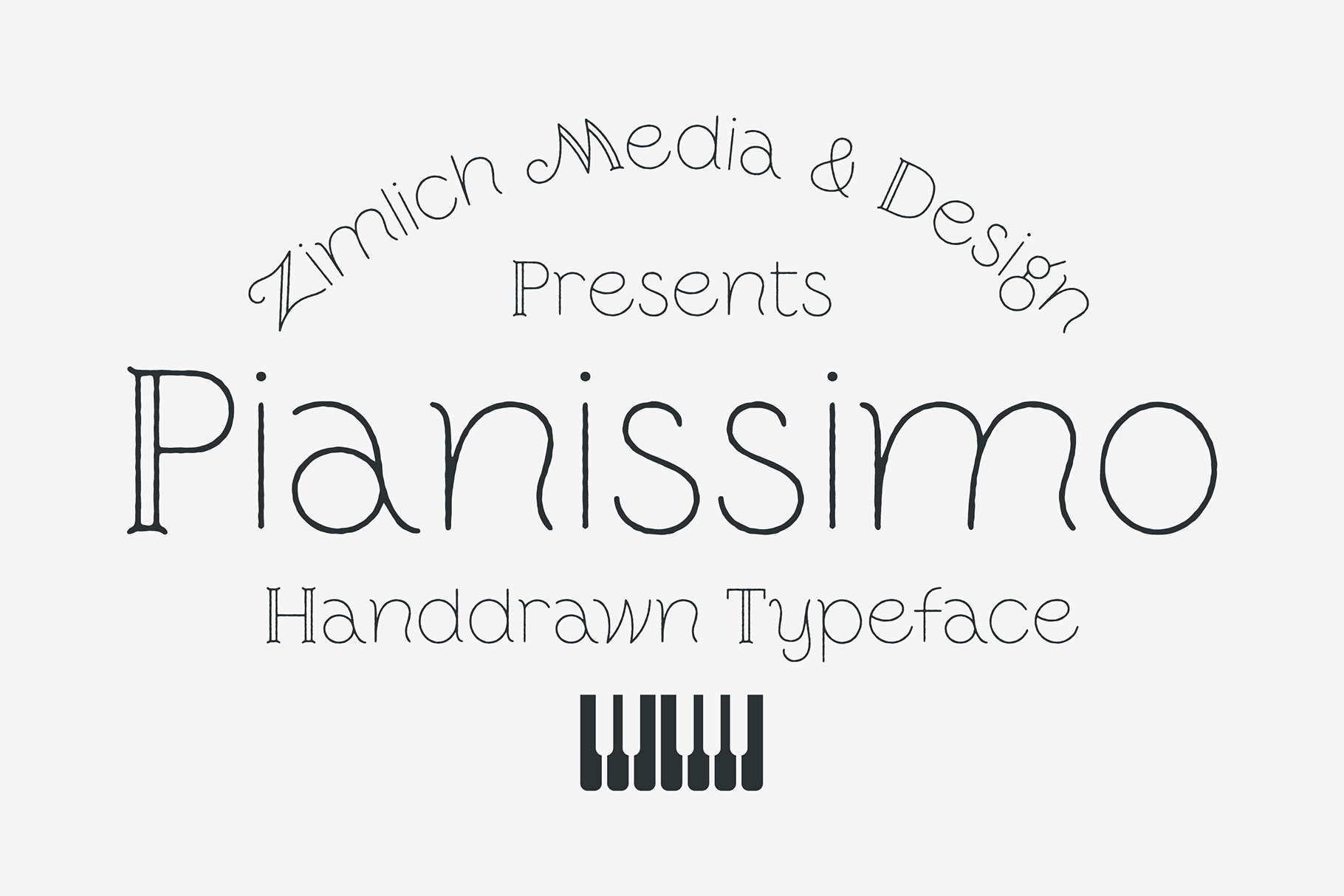
Pianissimo - Hand Drawn Typeface
Pianissimo is typeface named after a term used in musical notation meaning "very softly." Use this thin, textured typeface in your designs where you need to convey an understated but refined impression.